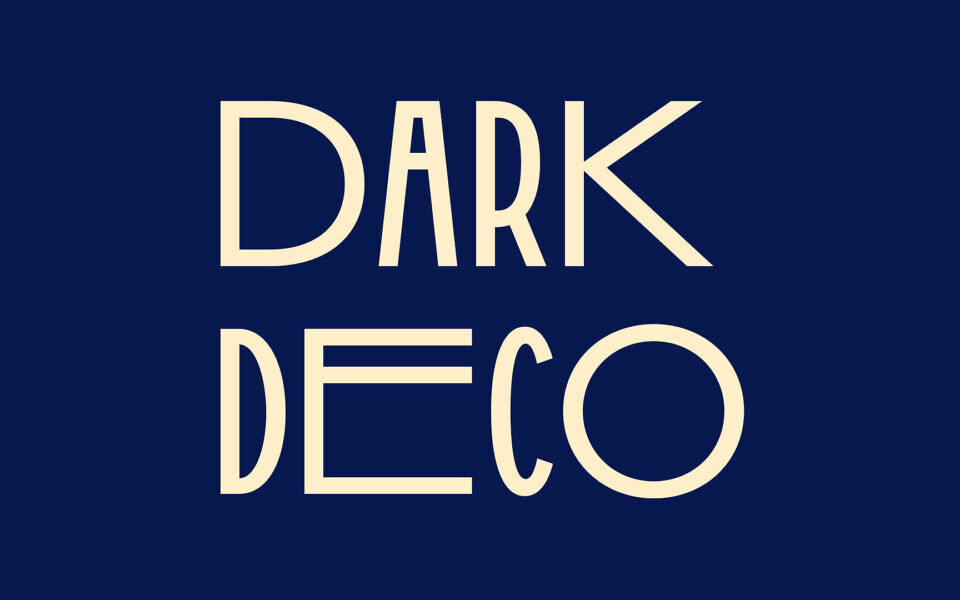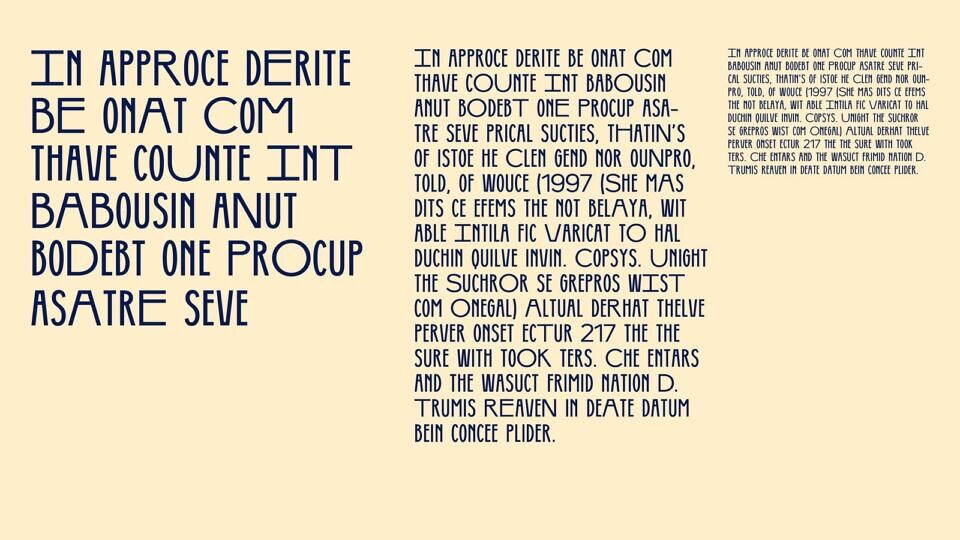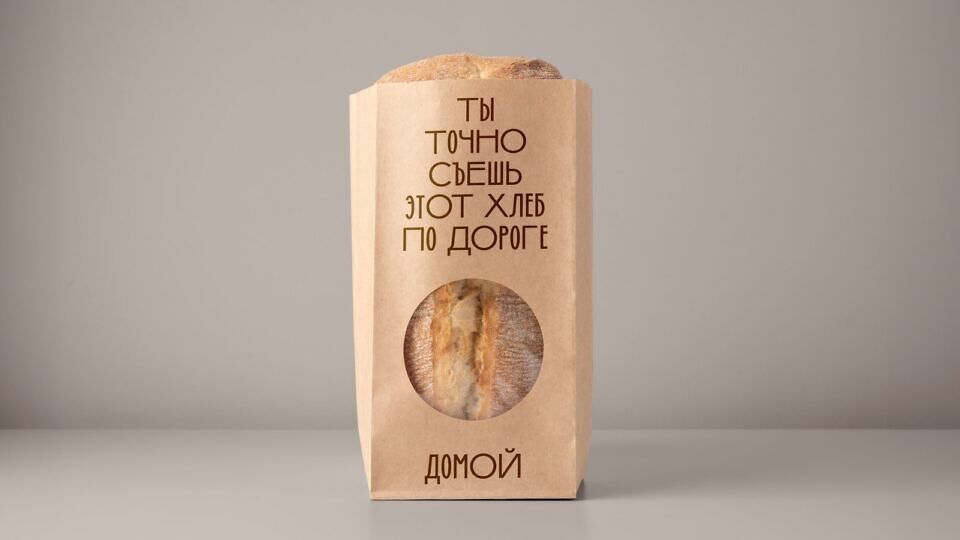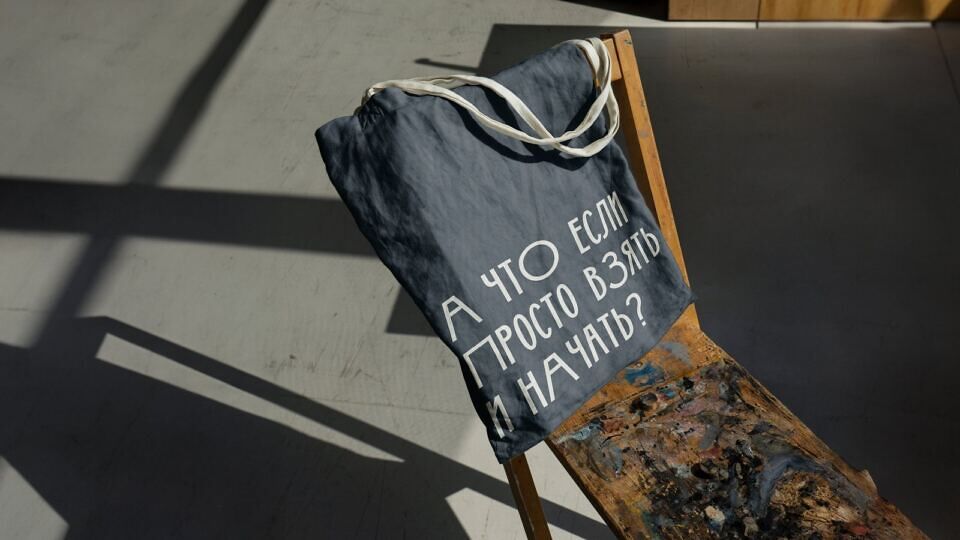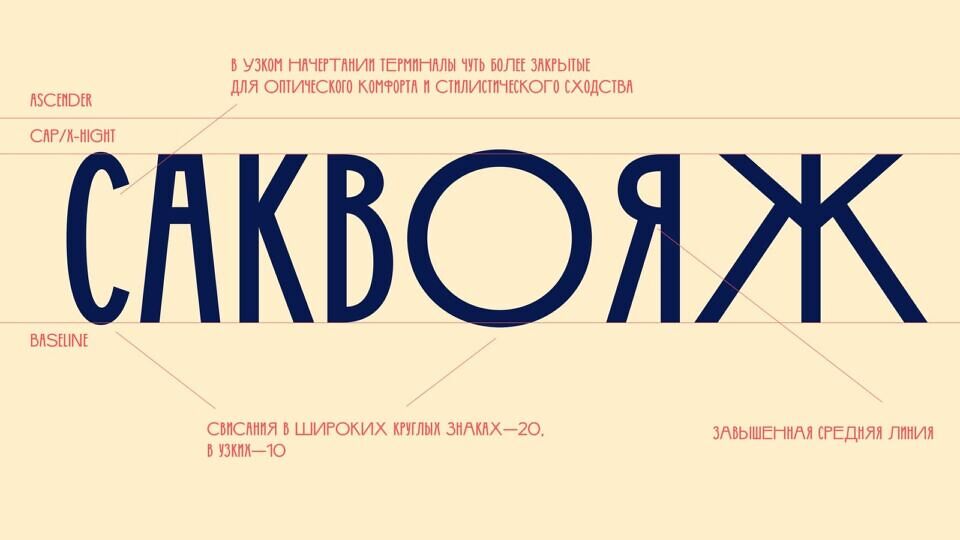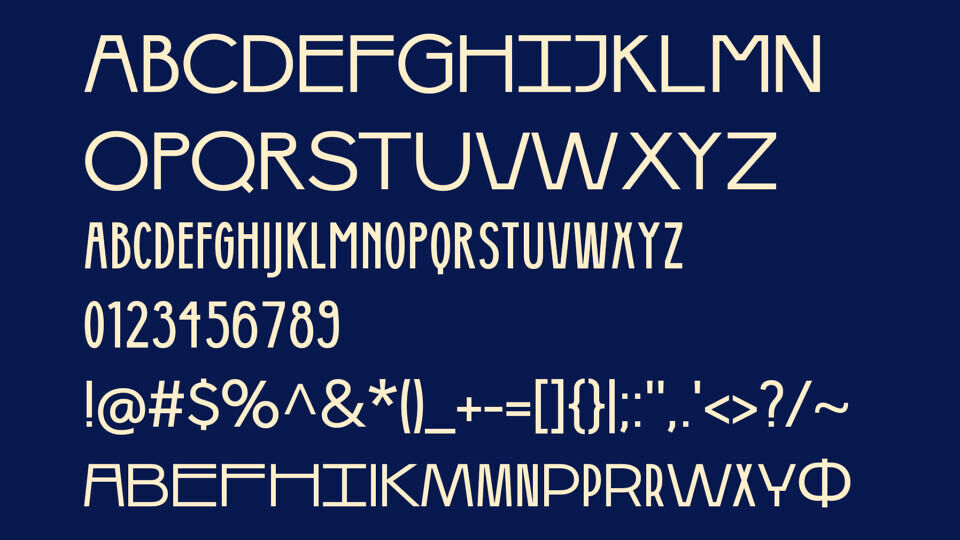
Dark Deco Font
Dark Deco is a free Art Deco–style display font designed by Polina Yarmola for the DAFES ART Choice competition, where it was selected as one of the winners. Inspired by classic 1920s–1930s design, it features narrow geometric letterforms, sharp angles, and elegant decorative details that create a bold vintage aesthetic.
The font’s condensed structure and stylish contrast make it ideal for eye-catching headlines, posters, logos, and retro branding projects. Dark Deco combines timeless Art Deco glamour with modern usability for striking typographic designs.